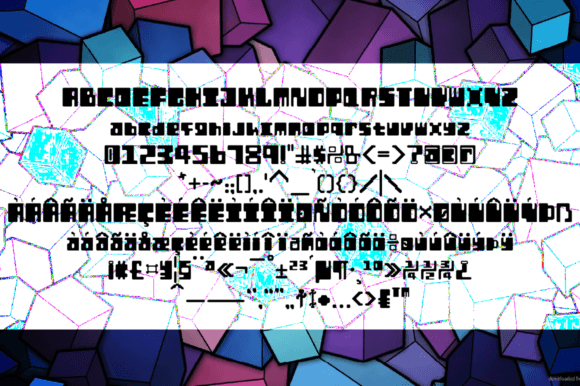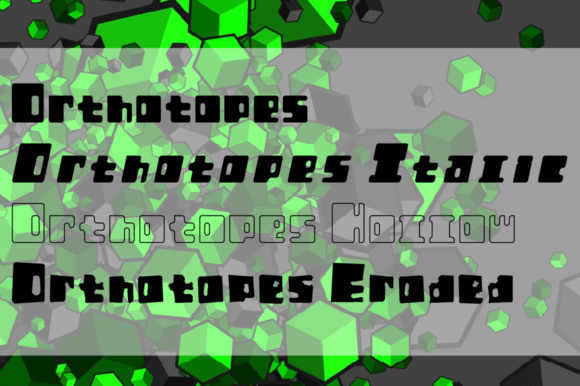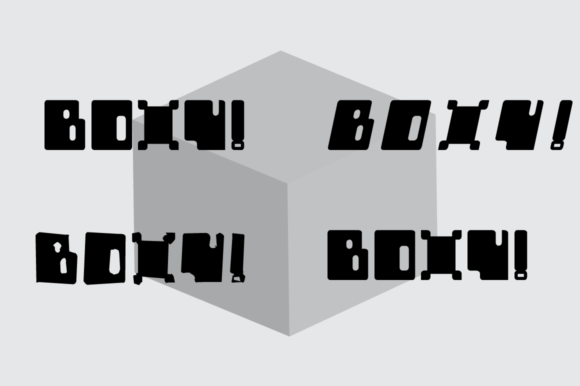
Introduction to Orthotopes – Eroded Font
Have you ever found yourself scrolling through a design forum or social media group, and suddenly, a font catches your eye? The way it blends with the transparent background, the high quality of its pixels, and the sheer uniqueness of its style all combine to create a moment of pure design inspiration. For designers, these moments are what drive our passion and creativity. And, for me, that moment recently came in the form of the Orthotopes – Eroded Font.
This retro-style font is a game-changer for any creative project. Its squarish, 70’s-inspired design is sure to add a touch of nostalgia and sophistication to your designs. Whether you’re working on a poster, a logo, or even a holographic display, Orthotopes – Eroded Font is the perfect design resource to elevate your work.
Key Features of Orthotopes – Eroded Font
- High-quality design for creative projects with a unique eroded texture effect
- Transparent background for seamless integration with any design or image
- Perfect for use in graphic design, digital art, and other creative projects that require a distinctive font style
- Size: The font family includes multiple weights and styles, offering flexibility for designers to choose the perfect fit for their project
Honest Review: Orthotopes – Eroded Font
I recently came across the Orthotopes – Eroded Font, and I must say it’s a fascinating addition to my design resources. The font offers a unique, worn-out aesthetic that can add a touch of nostalgia to any creative project.
- ✨ High quality design that’s perfect for distressed or vintage-themed projects
- ✨ Offers a transparent background, making it easy to layer and customize
One of the standout features of the Orthotopes – Eroded Font is its versatility. It can be used for a wide range of projects, from advertising and marketing materials to personal branding and creative art.
- ⚠️ Limited character set, which may not be ideal for long-form text
- ⚠️ Not suitable for projects that require a high level of precision or accuracy
Overall, I’m impressed with the Orthotopes – Eroded Font. Its unique design and high quality make it a valuable addition to any designer’s toolkit. While it may have some limitations, it’s definitely worth considering for your next creative project.
Orthotopes – Eroded Font
The Orthotopes – Eroded Font is a unique and high-quality design resource that can add a touch of elegance to your creative project. With its transparent background and intricate details, this font is perfect for designers looking for a distinctive and creative element.
For the best results, use the Orthotopes – Eroded Font in a high-resolution image or design project. You can also experiment with different font sizes and styles to create a unique look.
The Orthotopes – Eroded Font is perfect for creative projects such as:
Graphic design
Print design
Web design
Can I use the Orthotopes – Eroded Font on a transparent background?
Yes, the Orthotopes – Eroded Font has a transparent background, allowing you to easily integrate it with your design’s background image or color. This feature is particularly useful for creating visually striking designs that require a high level of design resource flexibility.